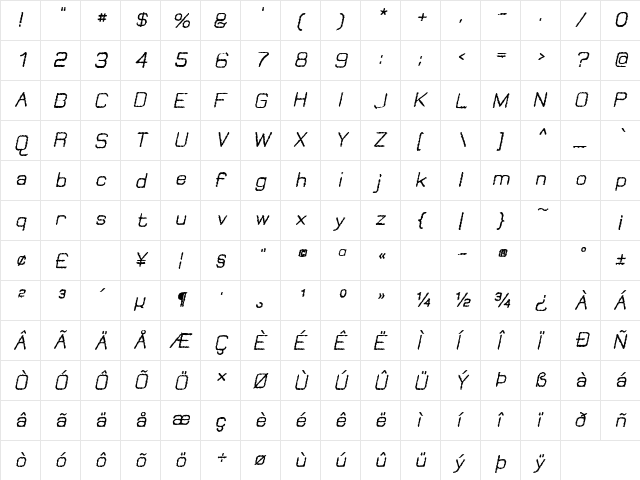
Jungle Burnout 1 Regular
Design Context for Jungle Burnout 1 Typeface
Jungle Burnout 1 offers clean, dependable letterforms without strong stylistic allegiance, making it a practical choice for designers who need flexibility.